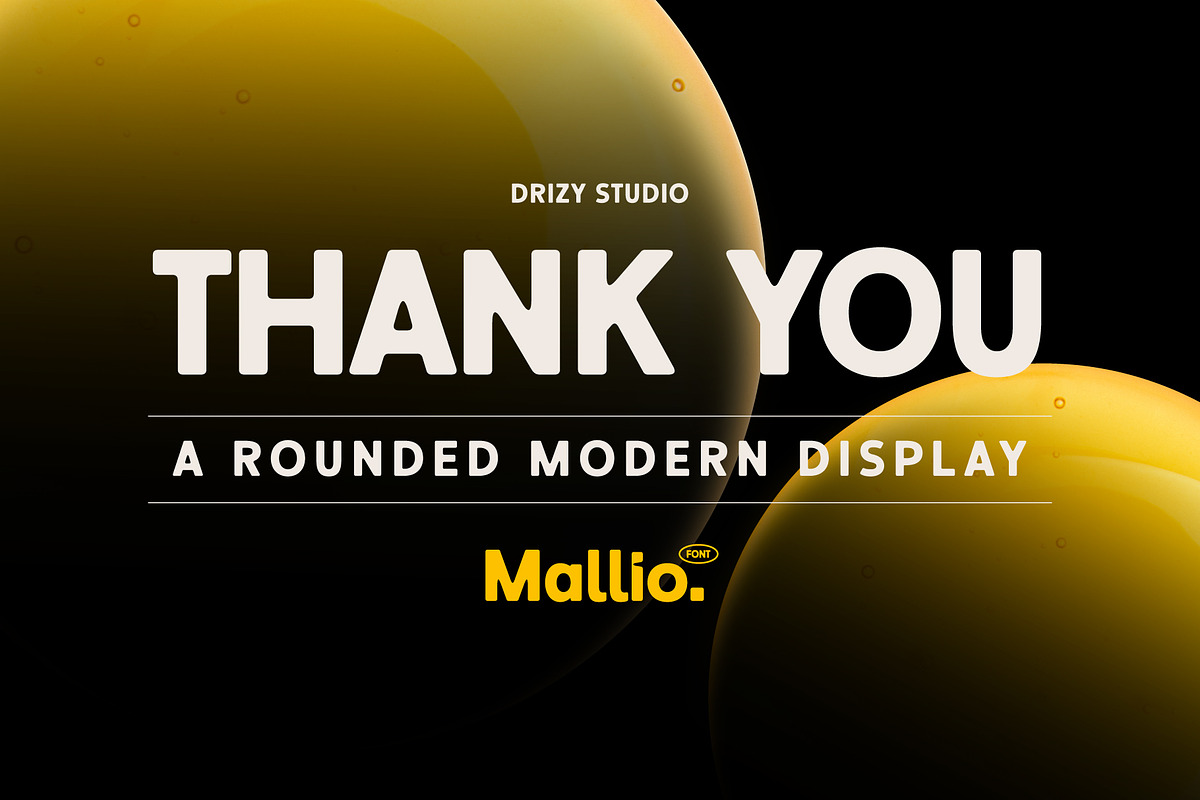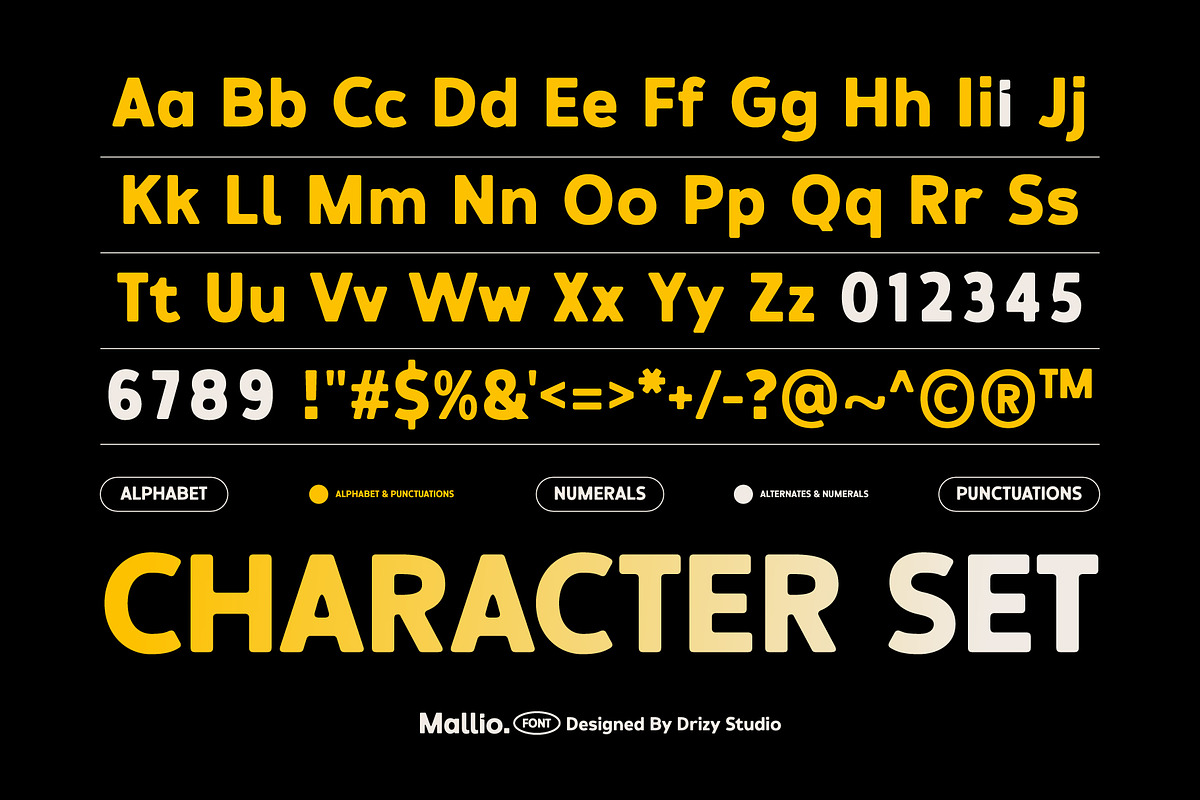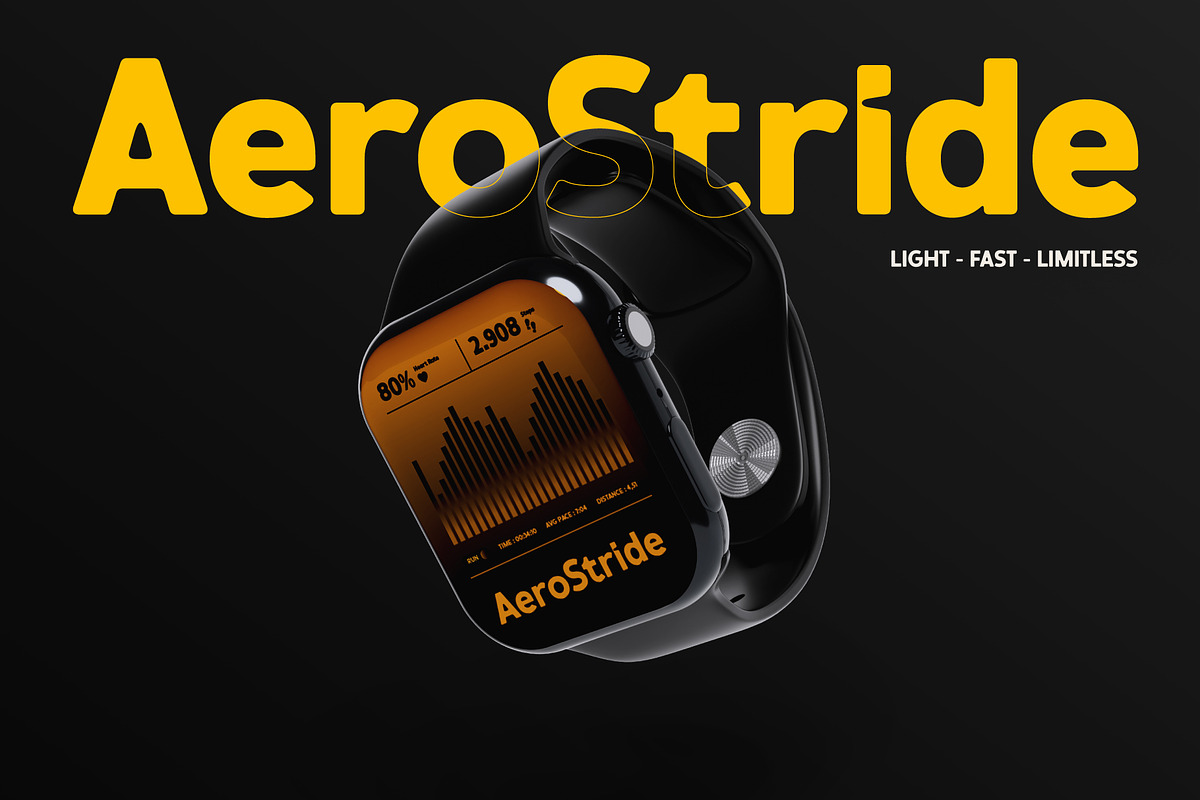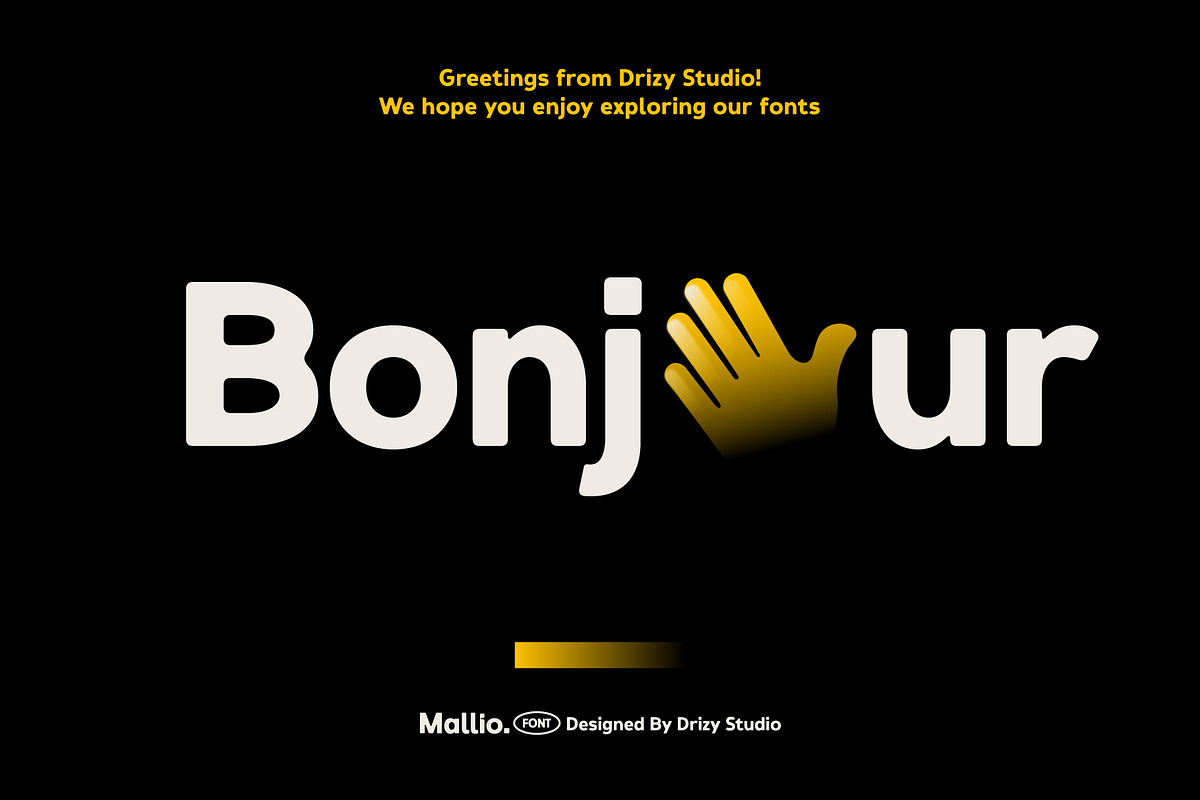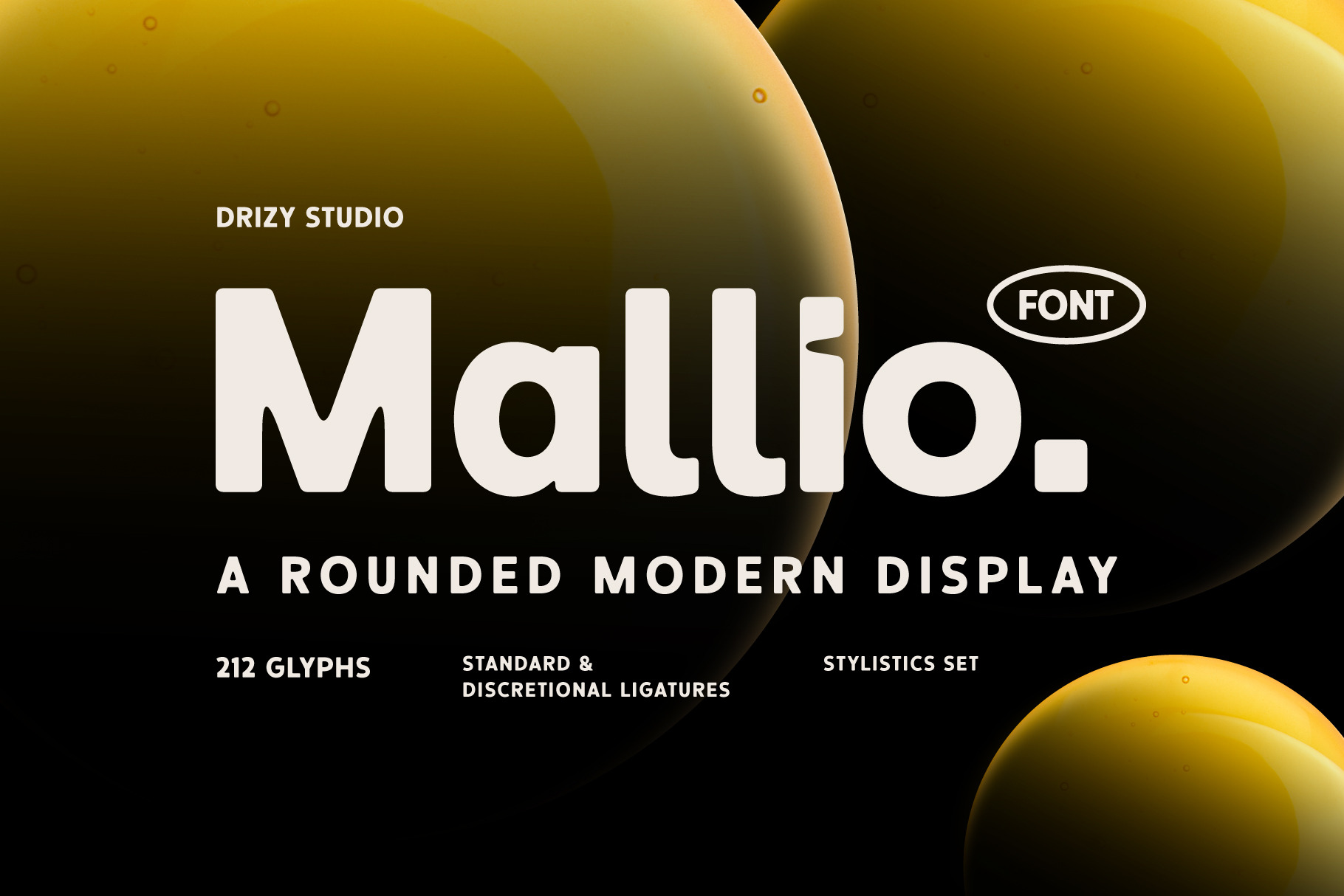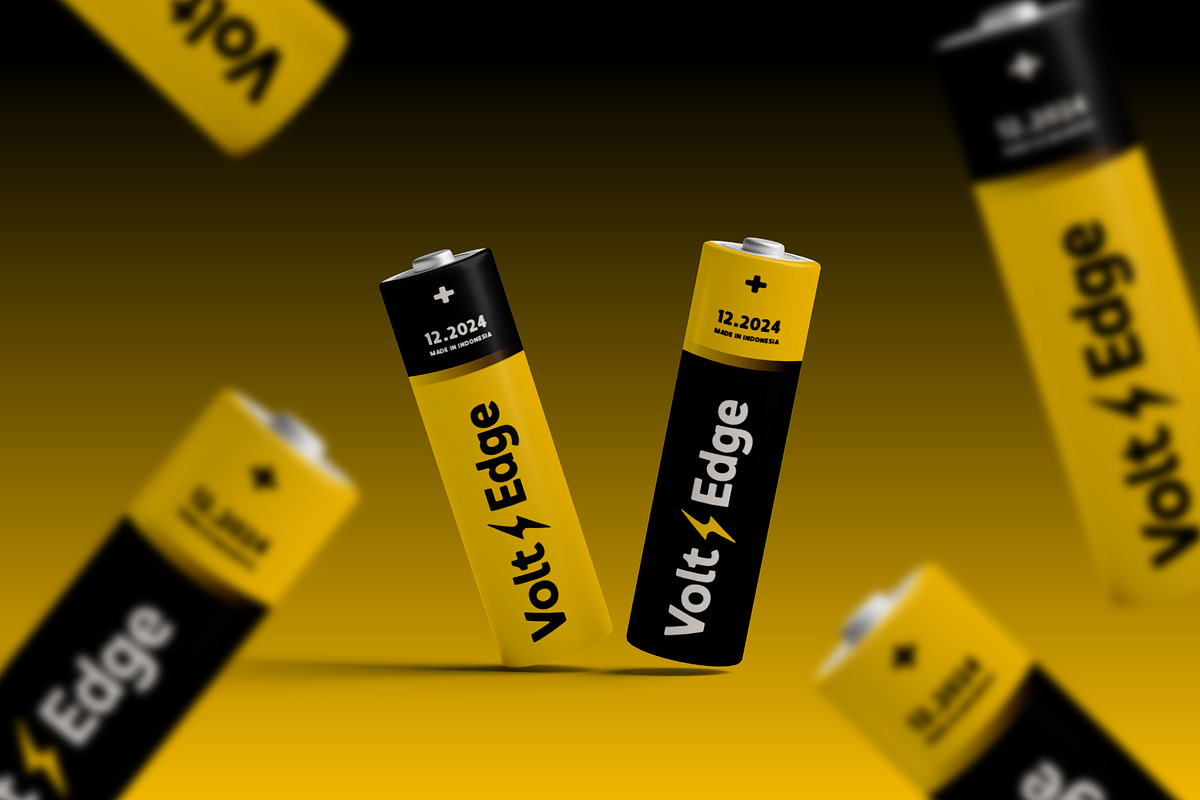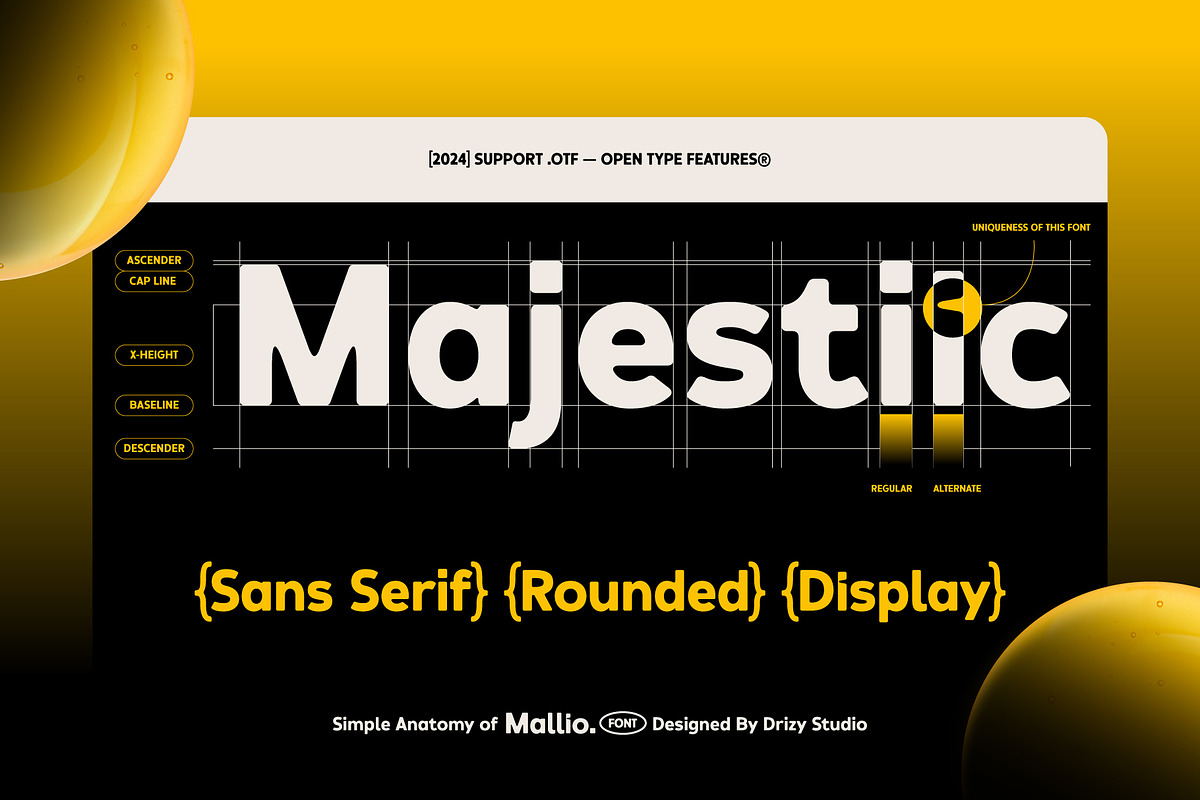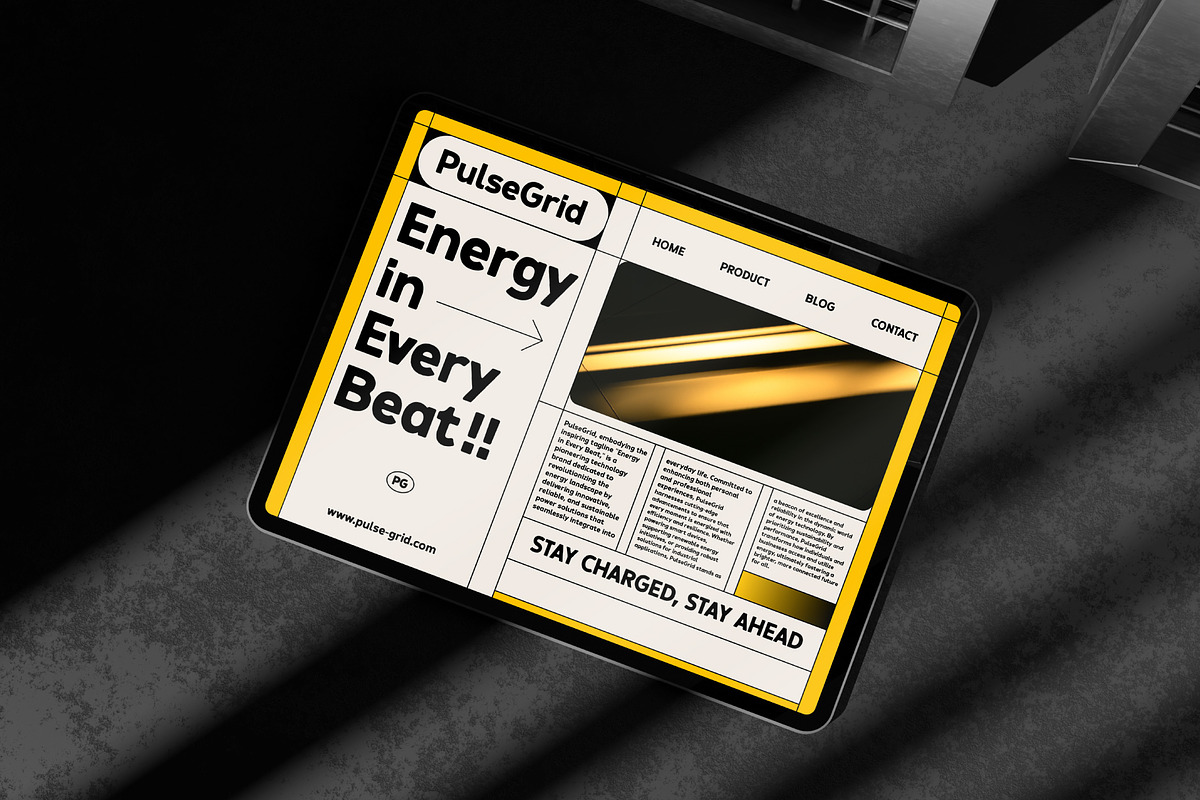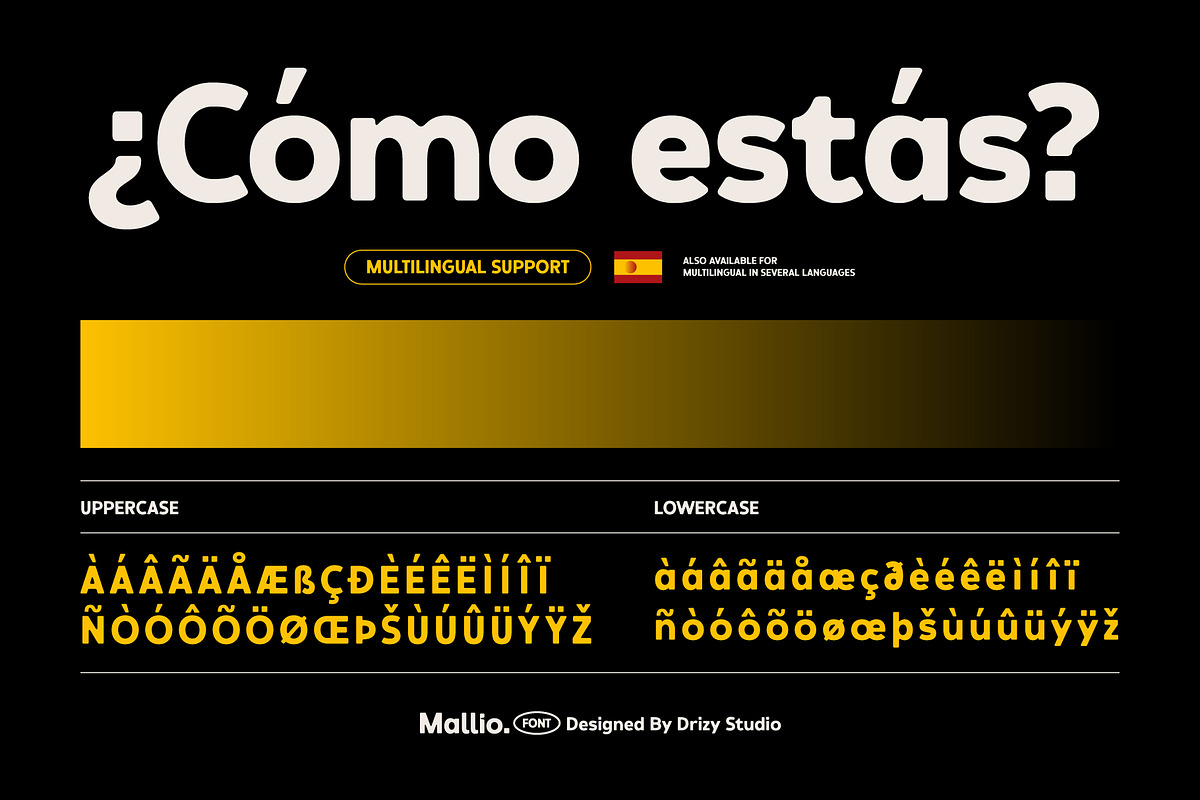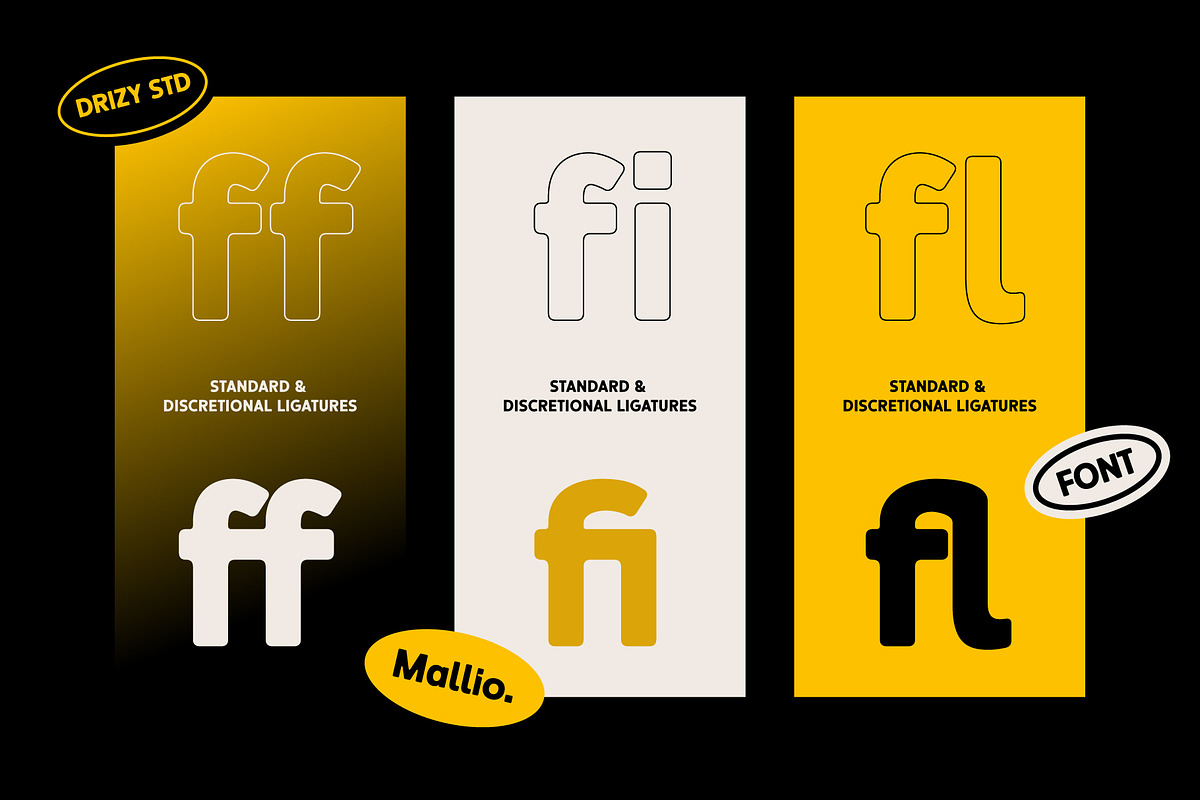
Mallio – Rounded Modern Display Font
Mallio is the perfect balance of sleek sophistication and playful curves, making it an excellent choice for Clean Modern. With it’s rounded edges and contemporary style, this font exudes friendliness and approachability while maintaining a professional look. Ideal for UI/UX design and visual identity projects, Mallio adds a polished, cohesive touch to any brand. It’s versatility makes it suitable for everything from tech startups to lifestyle brands, ensuring your design stands out with a fresh, modern appeal. Whether used for headlines, logos, or app interfaces, Mallio captures attention with elegance and clarity.
Mallio features:
- Character Set (Uppercase & Lowercase)
- Punctuation & Numbers
- Standard & Discretional Ligatures
Elevate and explore the design possibilities with this Clean Modern Font!